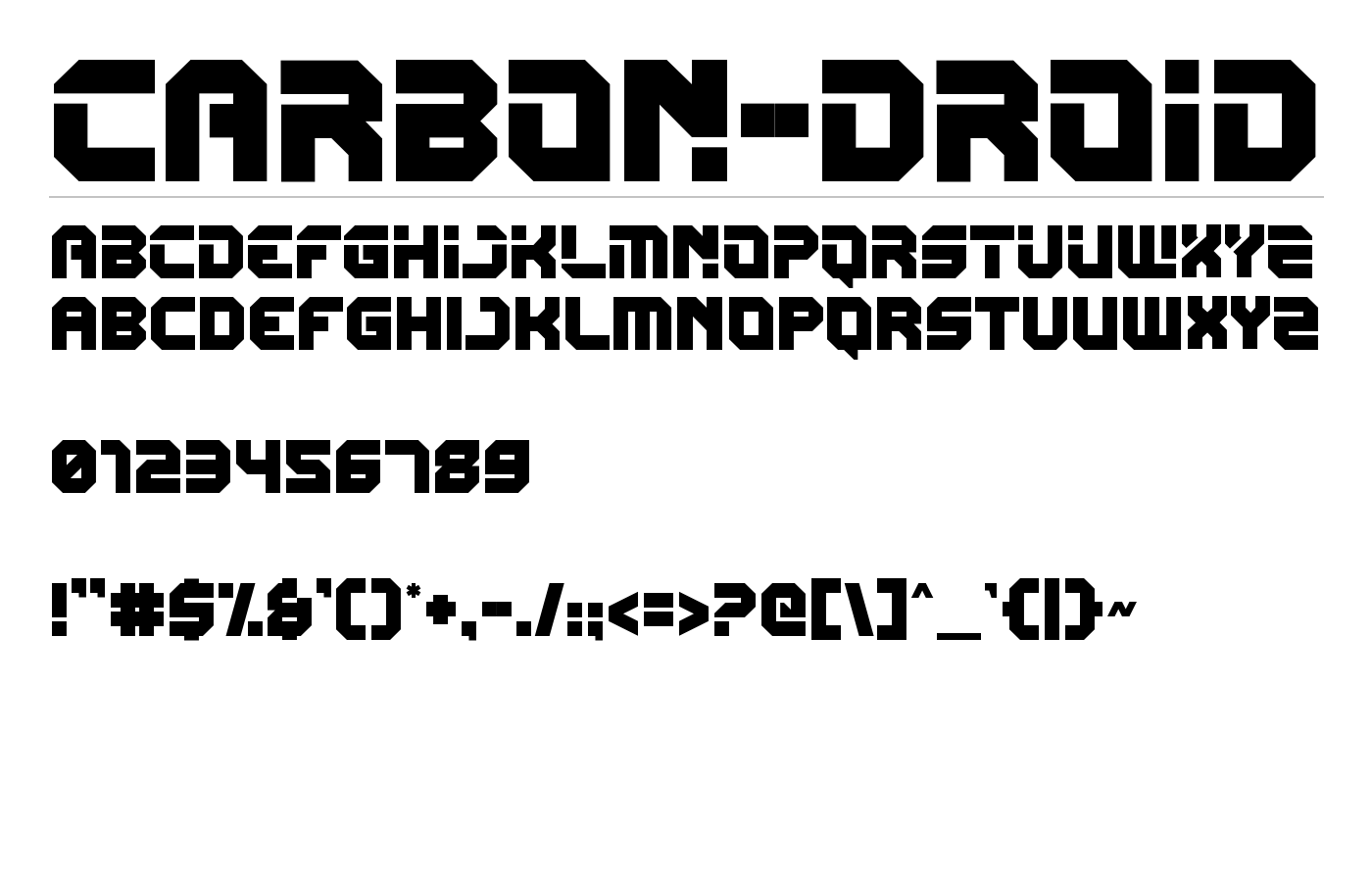
Carbon Droid is a bold, geometric sans serif font with a futuristic and robotic feel, characterized by its sharp angles and strong, blocky shapes. It features uniform stroke weight and distinctive cut corners that give it a tech-inspired, digital vibe, making it ideal for sci-fi themes, gaming, and technology branding. This font works best for headlines, logos, and posters where a modern, high-impact style is needed.
Carbon Droid Font